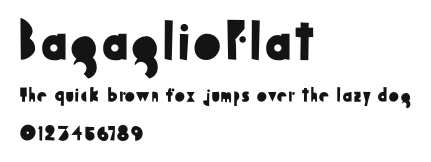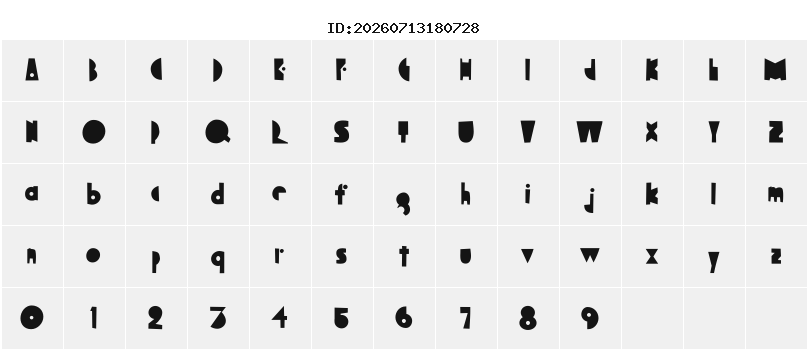
BagaglioFlat Preview
• Font Name: BagaglioFlat
• Font Style: Roman
• Font ID: DTP-BagaglioFlat
• Full Font Name: BagaglioFlat
• PostScript Name: BagaglioFlat
• Character Count: 217
About BagaglioFlat.ttf
BagaglioFlat.ttf is a modern, elegant sans-serif font designed for ultimate readability and visual harmony. Perfect for branding, headlines, web design, and print materials.